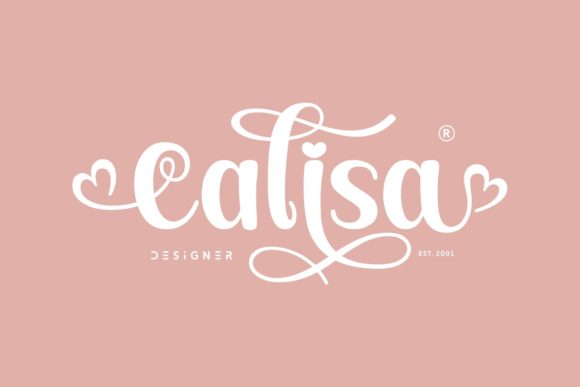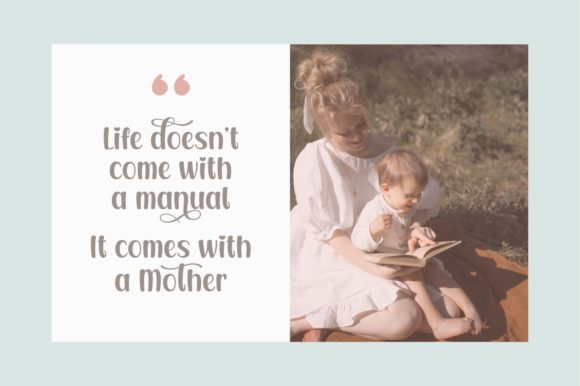
Linda Wanita Font
db-ku.com - Script & Handwritten -- Linda Wanita is an elegant handwritten font featuring additional whimsical swishes and heart elements. The font will be sure to bring a loving touch to your next craft or design project. It is compatible with cutting machines such as Cricut and Silhouette.